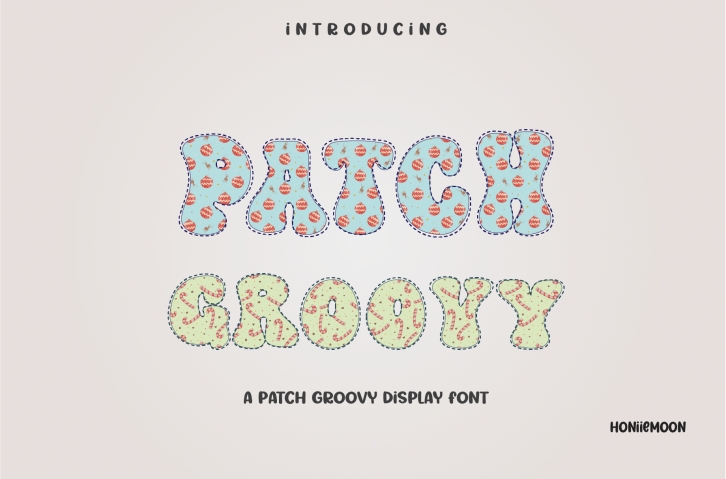
Patch Groovy is a cool and fun display font. It looks both cute and jolly and it will enhance each of your designs. The only limit is your imagination. Add this colorful and bold display font to each of your creative ideas and notice how it makes them come alive!